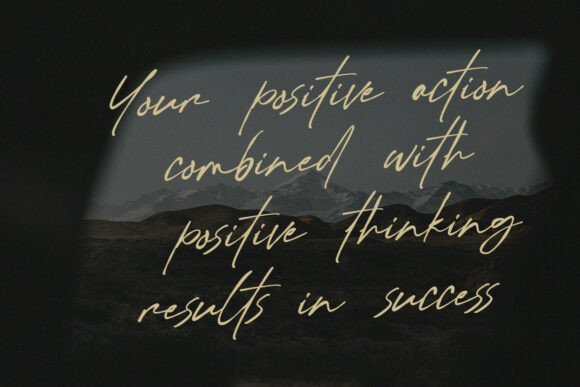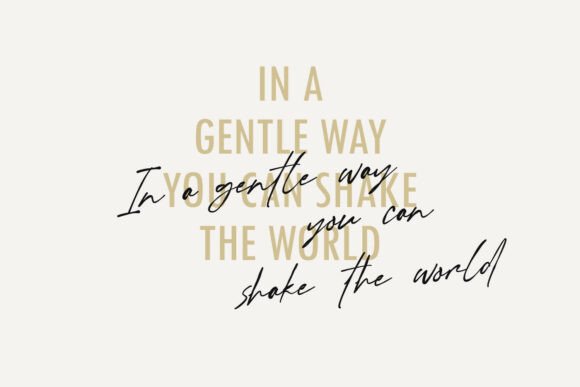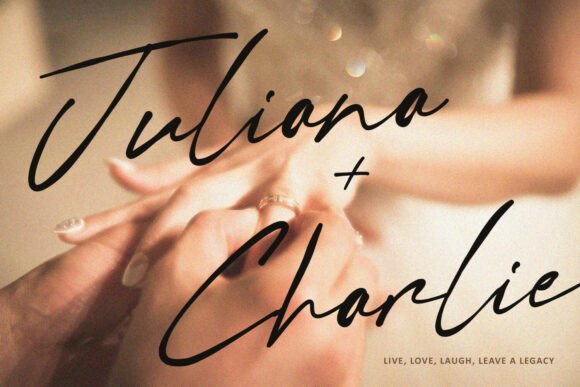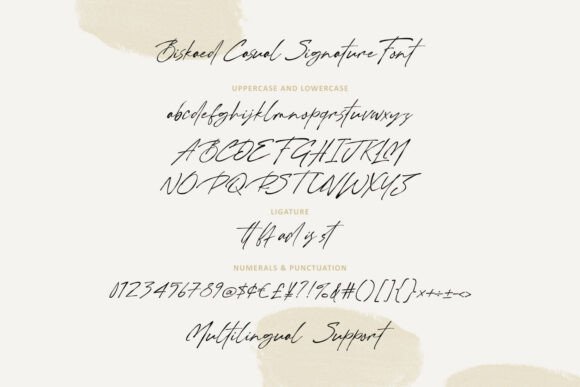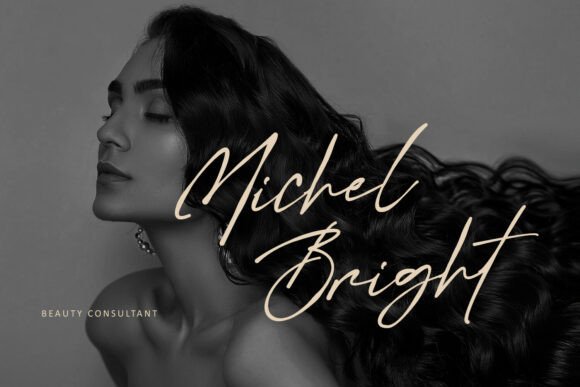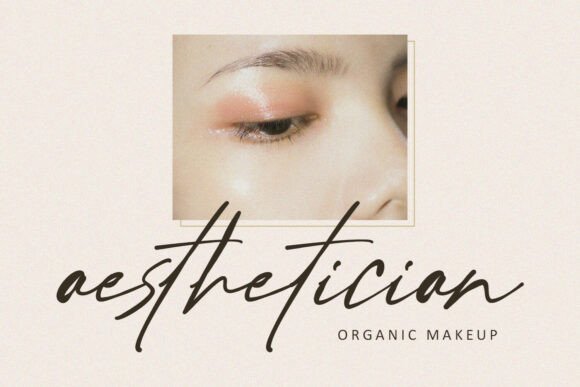
Introducing the Biskaed Signature Font: Elevate Your Design with Effortless Cool
In the world of typography, a well-crafted font can make all the difference in conveying the tone and personality of a brand. For designers and crafters seeking to add a touch of modern penmanship to their work, the Biskaed Casual Signature font is an exceptional choice. This typeface is designed to capture the essence of a quick yet perfectly formed handwritten note, exuding a sense of effortless cool that resonates with today’s audiences.
The Characteristics of Biskaed Casual Signature
The Biskaed Casual Signature font boasts a natural, fluid flow that mimics the organic movement of a real ink pen. Its varying stroke weights and subtle imperfections evoke the pressure and nuances of handwriting, creating a sense of authentic human connection. This typeface is the perfect tool for “lifestyle” branding, allowing designers to craft compelling visual identities that feel approachable, trendy, and bespoke.
Ideal Applications for Biskaed Casual Signature
The versatility of the Biskaed Casual Signature font makes it suitable for a wide range of design applications. Some of the ideal uses for this typeface include:
- Influencer watermarks: Add a touch of personality to your influencer branding with a font that feels like a handwritten signature.
- Casual boutique logos: Create a unique and stylish visual identity for your boutique or fashion brand.
- Social media graphics: Elevate your social media presence with eye-catching graphics that feature the Biskaed Casual Signature font.
- Photography overlays: Add a “hand-signed” touch to your photography overlays for a more personal and artistic feel.
- Business cards: Make a lasting impression with business cards that feature a unique and stylish font.
- Apparel tags: Add a touch of quality and craft to your apparel tags with a font that feels like a handwritten note.
Pairing Biskaed Casual Signature with Other Fonts
To create a balanced design, it’s essential to pair the Biskaed Casual Signature font with a complementary typeface. A sturdy, all-caps sans-serif font provides a solid foundation for the script’s organic movement, creating a harmonious contrast that enhances the overall visual appeal. This pairing works beautifully in various design applications, from branding and advertising to packaging and editorial design.
The Benefits of Using Biskaed Casual Signature
By incorporating the Biskaed Casual Signature font into your design work, you can:
- Convey quality and craft: The “hand-signed” touch of this font conveys a sense of care and attention to detail.
- Add a personal touch: The organic movement and imperfections of the font create a sense of authenticity and human connection.
- Stand out in a crowded market: The unique and stylish nature of the Biskaed Casual Signature font helps your brand or design stand out from the competition.
The Biskaed Casual Signature font is an exceptional tool for designers and crafters seeking to add a touch of modern penmanship to their work. Its natural, fluid flow and varying stroke weights create a sense of authentic human connection, making it perfect for “lifestyle” branding and various design applications. By pairing it with a complementary typeface and incorporating it into your design work, you can elevate your brand or design with effortless cool and create a lasting impression on your audience.